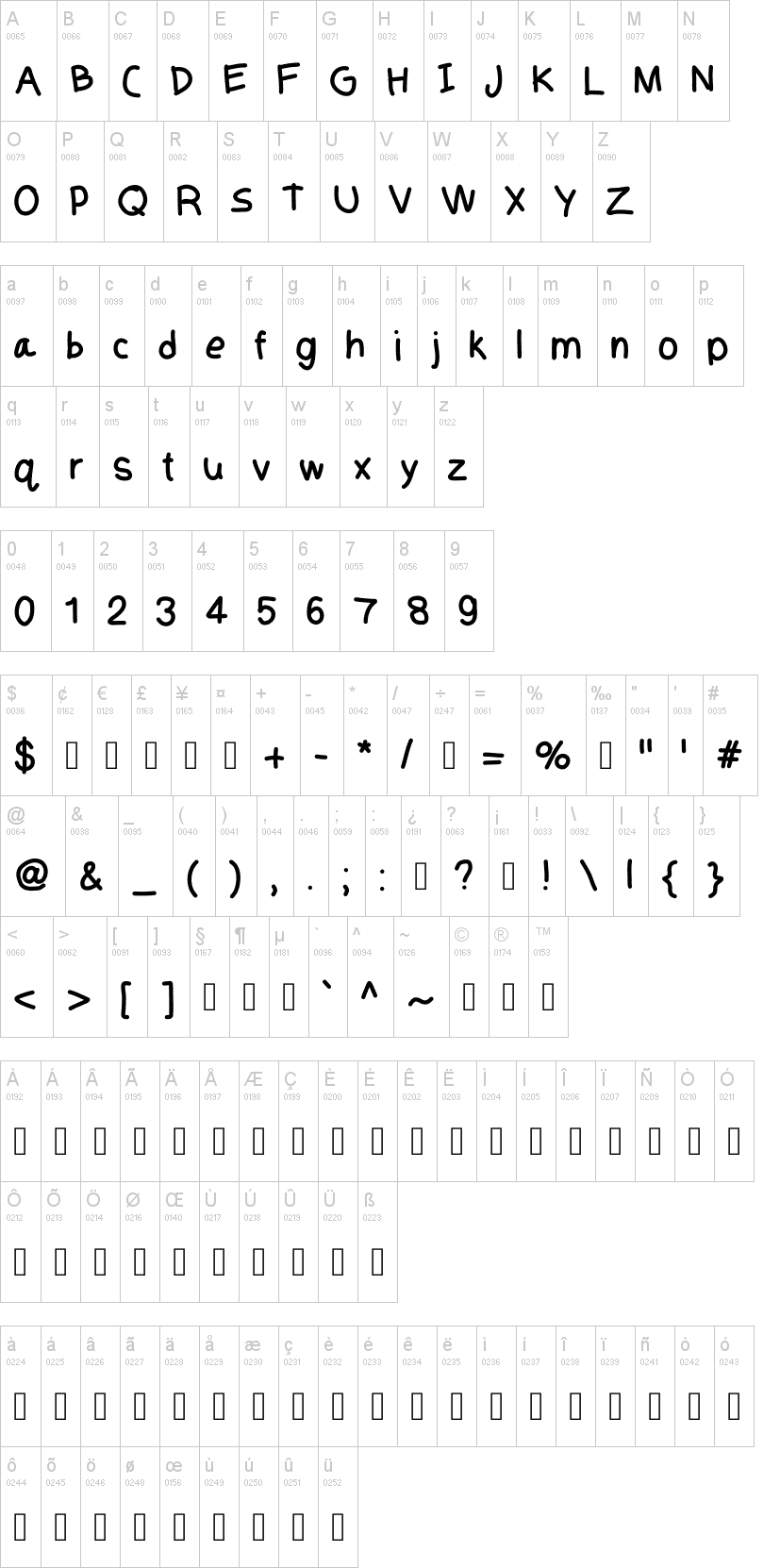
Note of the authorA font designed to replicate a child's handwriting. Great for diaries and emails. Email me at emailadithya@gmail.com with comments. This font is free for personal and commercial use.